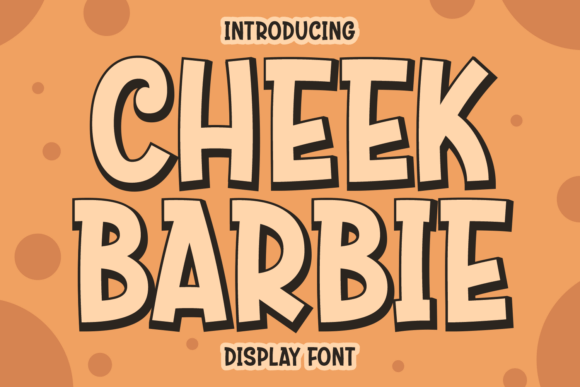
Introducing Cheek Barbie Font: The Ultimate Choice for Playful and Festive Designs
Are you tired of using the same old fonts for your designs? Look no further! Cheek Barbie Font is here to add a touch of whimsy and playfulness to your projects. This charming display font is perfect for Valentine’s Day cards, vacation-themed designs, kids’ projects, and festive occasions. Its single-line modern appeal captures the essence of holiday joy, making it an excellent choice for school or children-related projects.
What Makes Cheek Barbie Font So Special?
Cheek Barbie Font is a one-of-a-kind font that exudes a cute and charming vibe. Its playful and whimsical design makes it perfect for adding a touch of fun to your designs. Whether you’re working on a Valentine’s Day card, a kids’ party invitation, or a festive holiday project, this font is sure to brighten up your design.
Cheek Barbie Font is a versatile font that can be used by designers and crafters alike. Its modern appeal makes it perfect for a wide range of projects, from digital designs to print materials. Whether you’re creating social media graphics, blog posts, or printable art, this font is sure to add a touch of personality to your work.
Why Choose Cheek Barbie Font?
There are many reasons why Cheek Barbie Font is an excellent choice for your designs. Here are just a few:
- Playful and Whimsical: Cheek Barbie Font has a playful and whimsical design that’s perfect for adding a touch of fun to your designs.
- Modern Appeal: Its single-line modern appeal makes it perfect for a wide range of projects, from digital designs to print materials.
- Festive and Joyful: This font captures the essence of holiday joy, making it an excellent choice for festive and holiday-themed projects.
- Easy to Read: Cheek Barbie Font is easy to read, making it perfect for designs that require a clear and concise message.
How to Use Cheek Barbie Font in Your Designs
Using Cheek Barbie Font in your designs is easy! Here are a few tips to get you started:
- Pair it with Other Fonts: Cheek Barbie Font pairs well with other fonts, so feel free to experiment with different combinations.
- Use it for Headings: This font is perfect for headings and titles, so use it to add a touch of personality to your designs.
- Add it to Your Digital Designs: Cheek Barbie Font is perfect for digital designs, including social media graphics, blog posts, and email newsletters.
- Use it for Print Materials: This font is also perfect for print materials, including brochures, flyers, and business cards.
| Font Name | Cheek Barbie Font |
| Author | Arnika Studio |
In conclusion, Cheek Barbie Font is a charming and playful display font that’s perfect for adding a touch of whimsy to your designs. Its modern appeal and festive vibe make it an excellent choice for a wide range of projects, from Valentine’s Day cards to kids’ party invitations. Whether you’re a designer or crafter, this font is sure to brighten up your designs and add a touch of personality to your work.